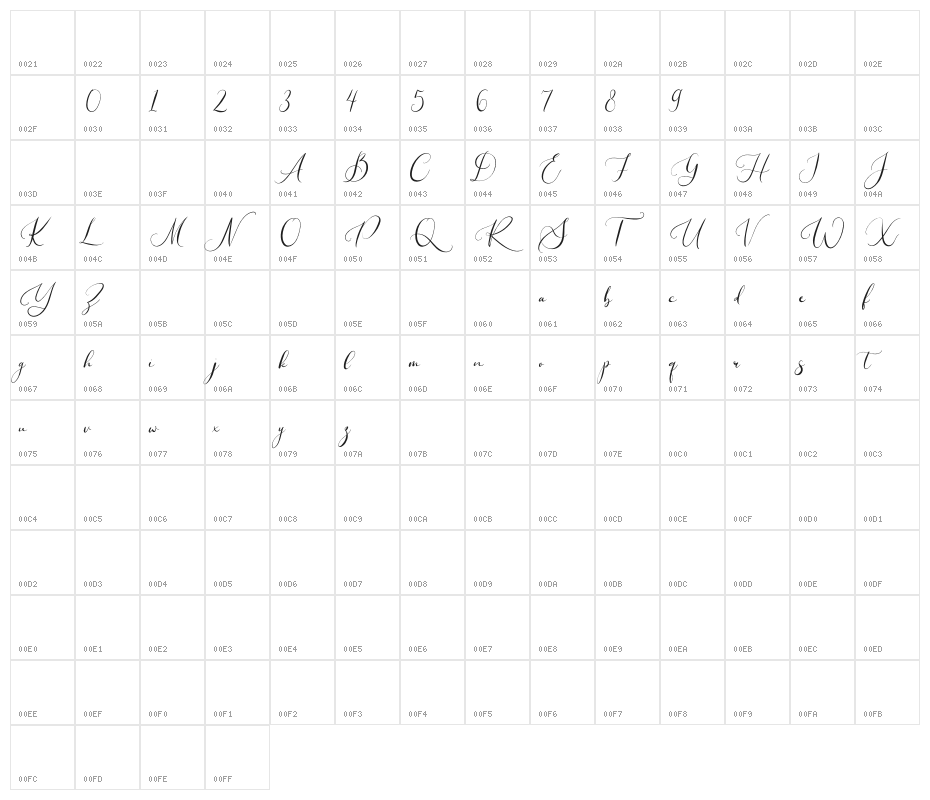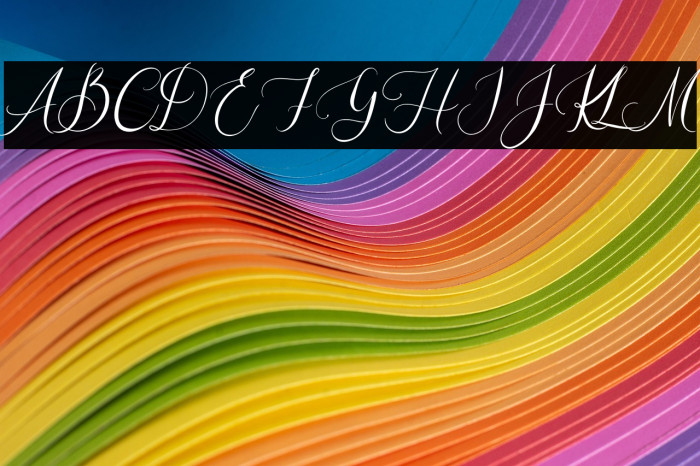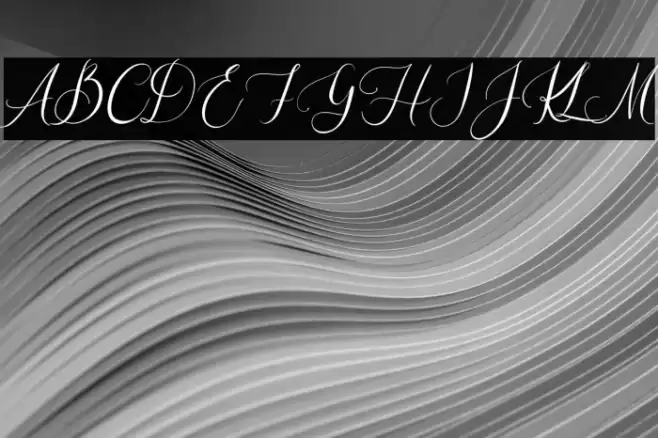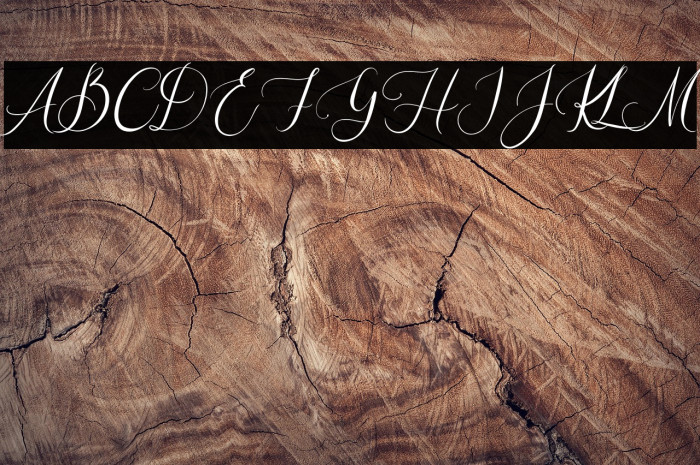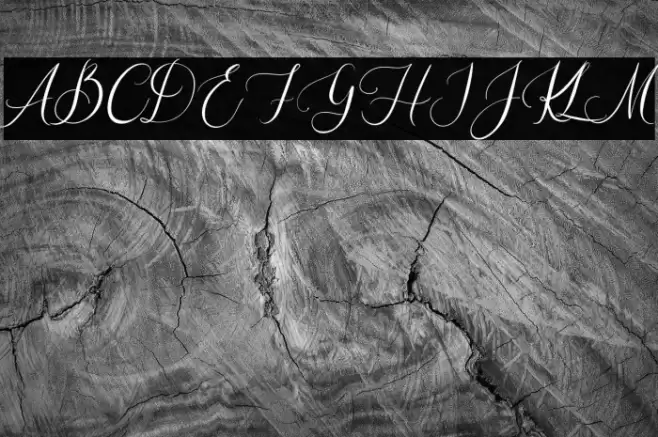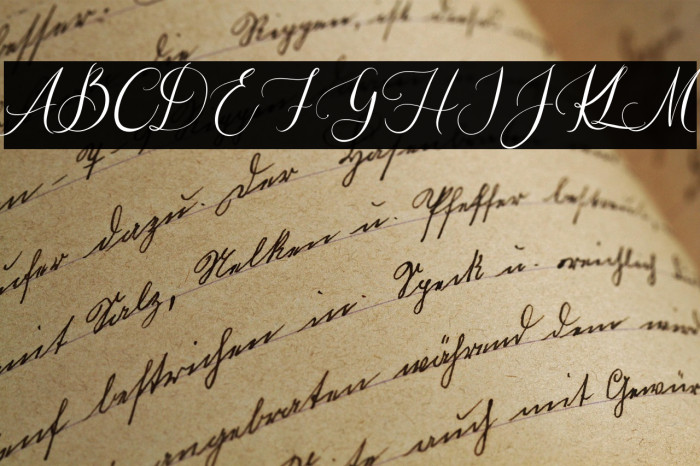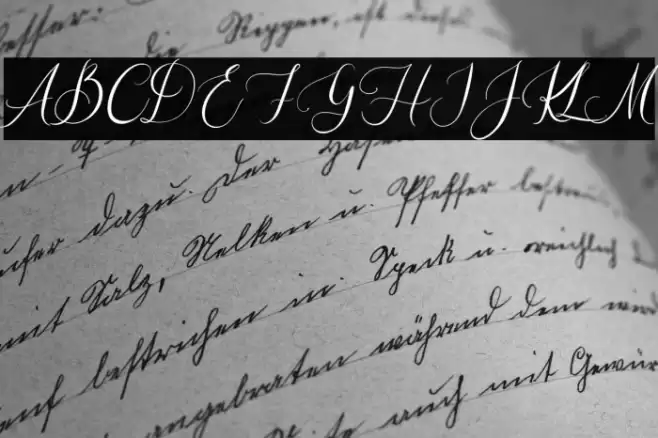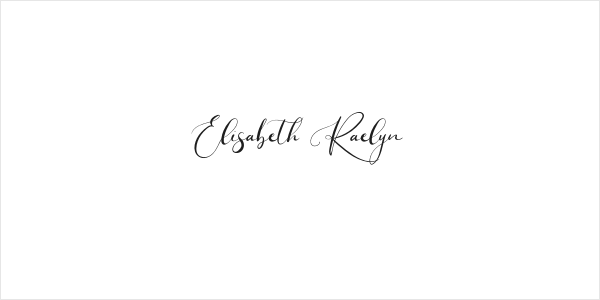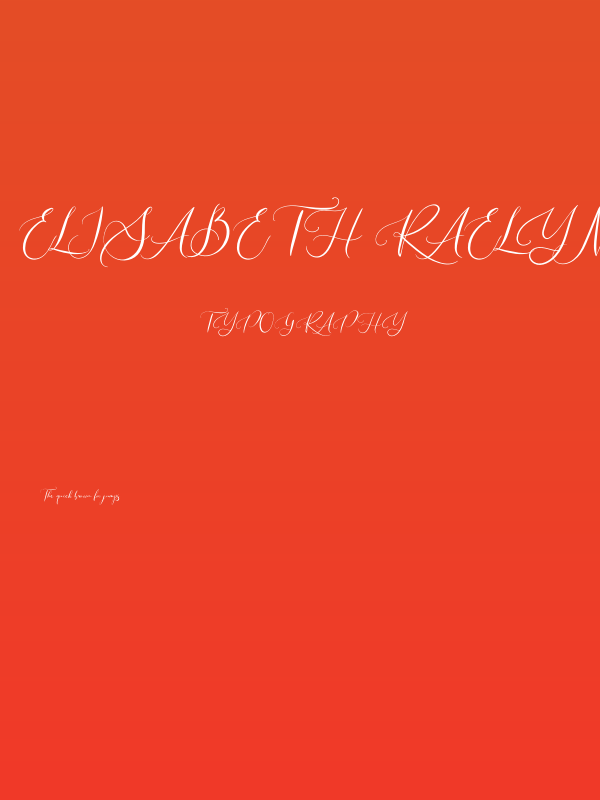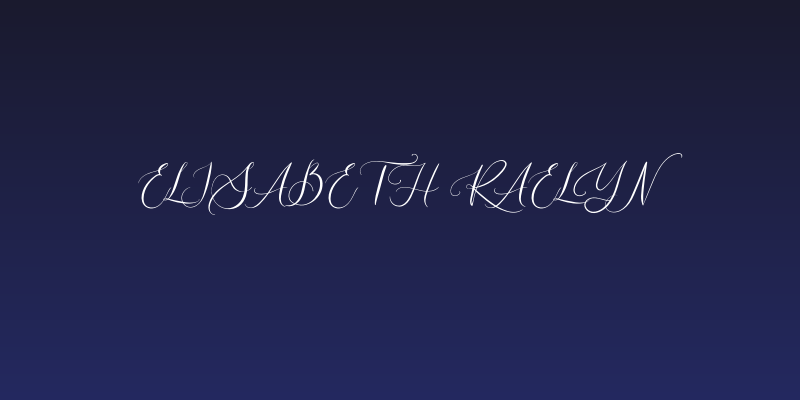
Elisabeth Raelyn Font
Elisabeth Raelyn Description
This elegant script font features a flowing, cursive style with intricate swashes and flourishes. The uppercase letters are particularly ornate, with extended loops and delicate curves that add a sense of sophistication and grace. The lowercase letters maintain a consistent flow, enhancing readability while retaining the decorative nature of the font. Numbers are styled to match the overall aesthetic, with subtle curves and a slight slant that complements the letters. This font is ideal for projects that require a touch of elegance and refinement, such as wedding invitations, formal event programs, or high-end branding materials.
| Use Case | Invitations, Branding, Decorative text |
| Proposed Projects | Wedding invitations, formal event programs, luxury branding, greeting cards. |